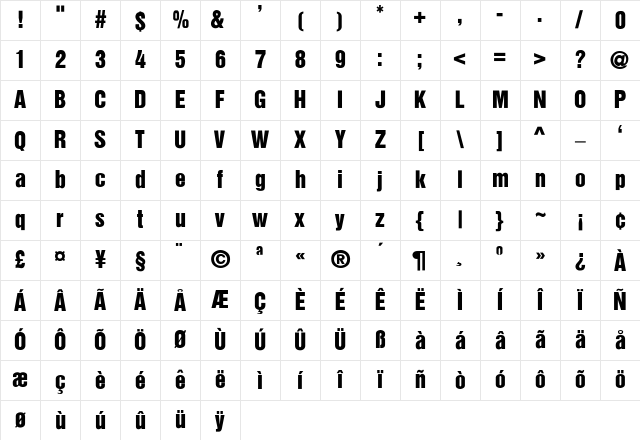
Complete PartridgeInserat-Roman-SemiBold Regular glyph index. Displaying only characters natively supported by PartridgeInserat-Roman-SemiBold Regular font.
PartridgeInserat-Roman-SemiBold is a composed and adaptable typeface that performs quietly and consistently across a wide range of design contexts. Its bold stroke weight gives it real presence on the page.